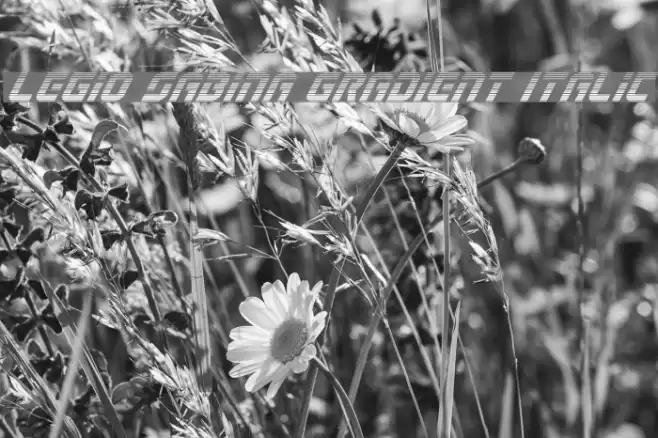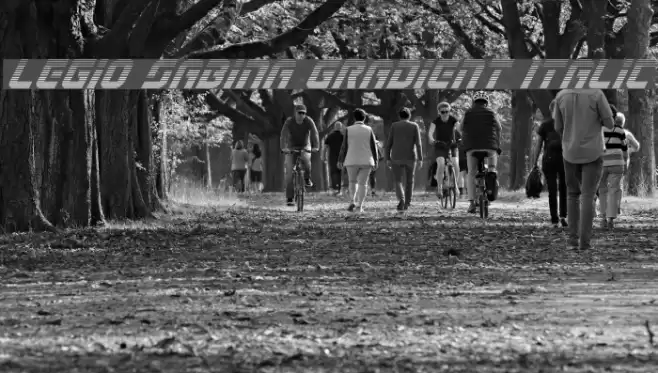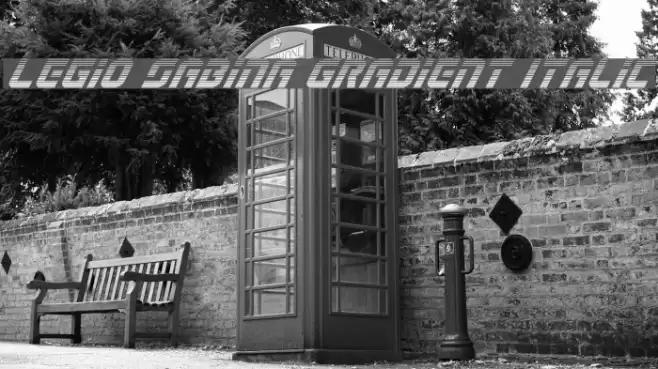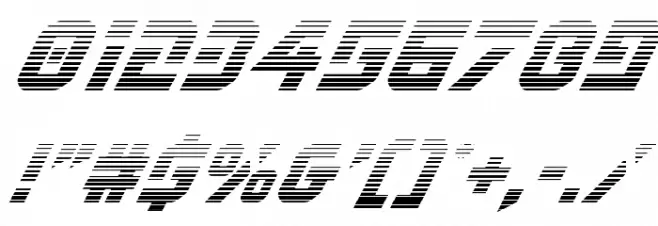
Legio Sabina Gradient Italic Font
Legio Sabina Gradient Italic Description
This font features a bold, italicized style with a distinct gradient effect created by horizontal lines. The characters are angular and futuristic, giving a sense of motion and speed. The uppercase and lowercase letters maintain a consistent slant, enhancing the dynamic appearance. The numbers and special characters follow the same stylistic approach, ensuring uniformity across all glyphs. The design is highly decorative, making it suitable for projects that require a modern and edgy look.
A bold, italicized font with a gradient effect and futuristic style from Uncategorized fonts.
- Proposed Projects: Ideal for use in sci-fi themed posters, video game titles, and modern branding projects.